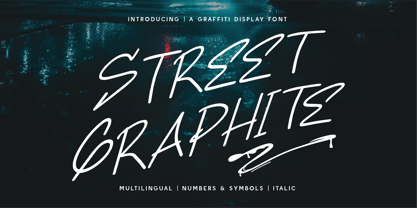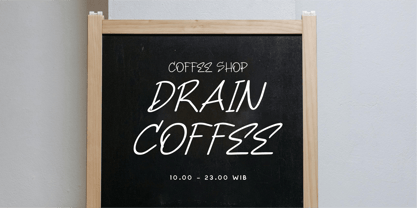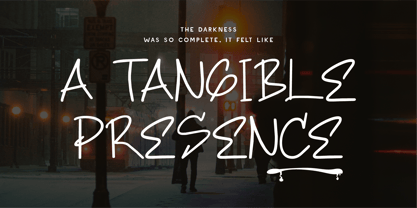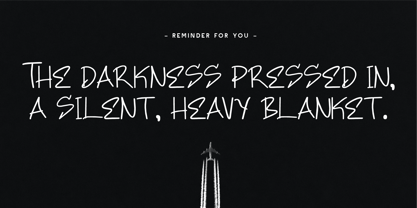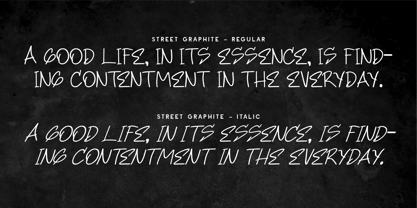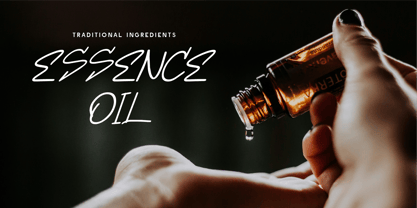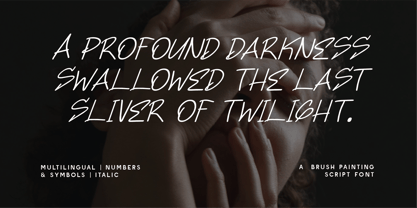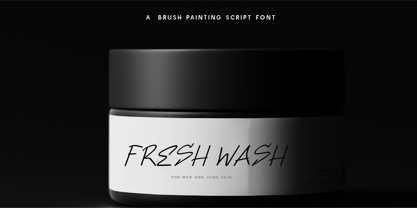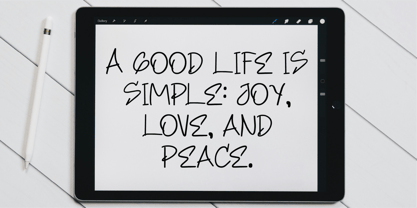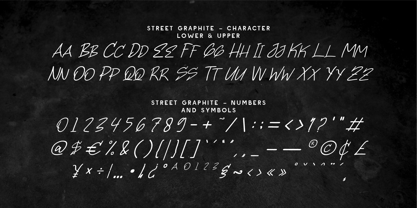
Street Graphite – A Raw & Energetic Graffiti Display Font
Unleash the raw energy of street art with Street Graphite, a graffiti display font designed for bold expression and urban creativity. With its fast, slanted strokes, natural spray-paint drips, and freestyle flow, this typeface brings the authentic feel of hand-drawn graffiti to your projects.
Perfect for streetwear branding, music covers, posters, urban advertising, digital art, and bold editorial designs, Street Graphite captures the spontaneity and rebellious spirit of street culture. Whether you're crafting high-energy typography or raw, unfiltered messaging, this font delivers an authentic underground aesthetic.
Why Choose Street Graphite?
🎨 Graffiti-Inspired Freestyle: A bold, slanted script with spray-paint details.
🔥 High-Impact & Expressive: Perfect for urban branding, music, and sports designs.
🖌 Raw & Edgy Handwriting: Designed to replicate real street-style lettering.
🌍 Multilingual & Versatile: Includes numbers, symbols, and extensive language support.